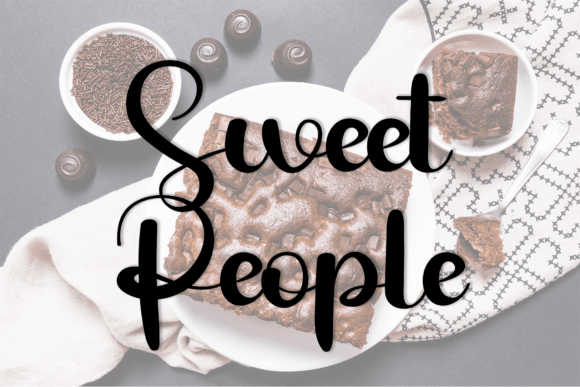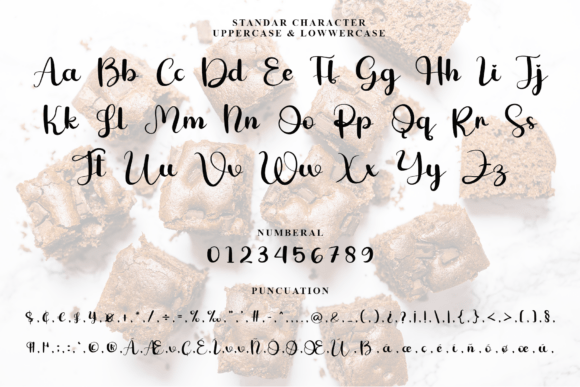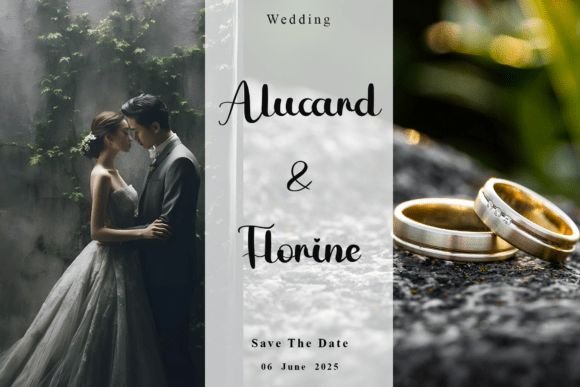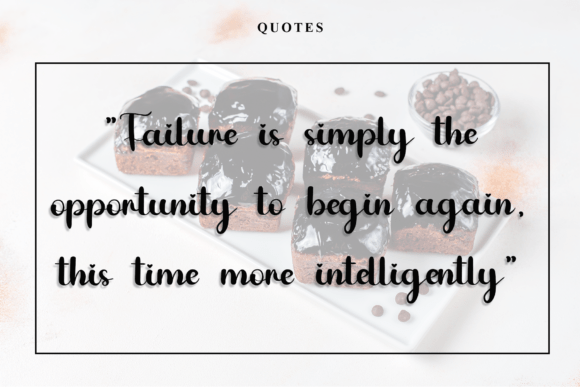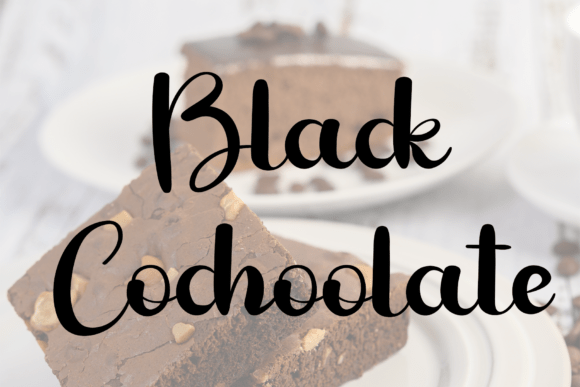
Discover the Joy of Handwritten Typography
Remember the feeling of creating a handmade card for a loved one? The way a personal touch can make even the simplest gesture feel special? That’s the magic of Brownis Font – a fun and friendly handwritten font designed to bring a smile to your designs.
Brownis Font is more than just a font – it’s a tool for creatives to express themselves and add a personal touch to their work. Whether you’re crafting a digital presentation, designing a greeting card, or working on a project that needs a little extra love, Brownis Font has the potential to become your go-to font for any occasion.
As a designer, you know the importance of a versatile font that can elevate your work and make it stand out. Brownis Font is that font – a valuable addition to any design toolkit that’s sure to bring a smile to your face and the faces of your audience.
Brownis Font Key Features
- Unique Characteristics: The font features a unique blend of modern and vintage elements, with distinctive letterforms and flourishes.
Designer Review: Brownis Font
Overall, I think Brownis Font has a lot of potential. ✨ The font’s unique blend of traditional and modern elements makes it stand out in a crowded market. The subtle texture and organic feel give it a sense of character that’s hard to find in other fonts.
Some of the strengths of Brownis Font include:
- ✨ Highly versatile: Brownis Font works well in a wide range of contexts, from body text to headings and even logos.
- ✨ Unique aesthetic: The font’s blend of modern and traditional elements gives it a distinctive look that’s sure to grab attention.
- ✨ High-quality rendering: The font renders well on a variety of devices and screen sizes, making it a solid choice for digital applications.
- ⚠️ Limited language support: Brownis Font may not be optimized for non-Latin scripts, which could be a problem for designers working on multilingual projects.
- ⚠️ Not ideal for small text: While Brownis Font looks great at larger sizes, it can become difficult to read at smaller sizes, which may limit its use in certain contexts.
Overall, I think Brownis Font is a solid choice for designers looking for a unique and versatile font. With some careful consideration of its limitations, it could be a great addition to any design project.
For optimal results, use Brownis Font for:
- Creative projects that require a unique, artistic touch.
- Branding and marketing materials that need a distinctive look.
- Typography-based art or designs.
Experiment with different font sizes, colors, and styles to get the most out of Brownis Font.